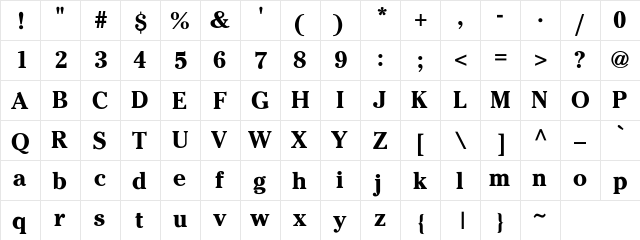
Bethany Bold Regular
Design Context for Bethany Bold Typeface
Bethany Bold takes a measured approach to typography — its balanced proportions and neutral character make it a reliable workhorse for both digital and print work. The heavy weight commands attention and anchors typographic hierarchies.
Pro Tip: Use Bethany Bold in both headline and body roles to test its range before committing to a single application.